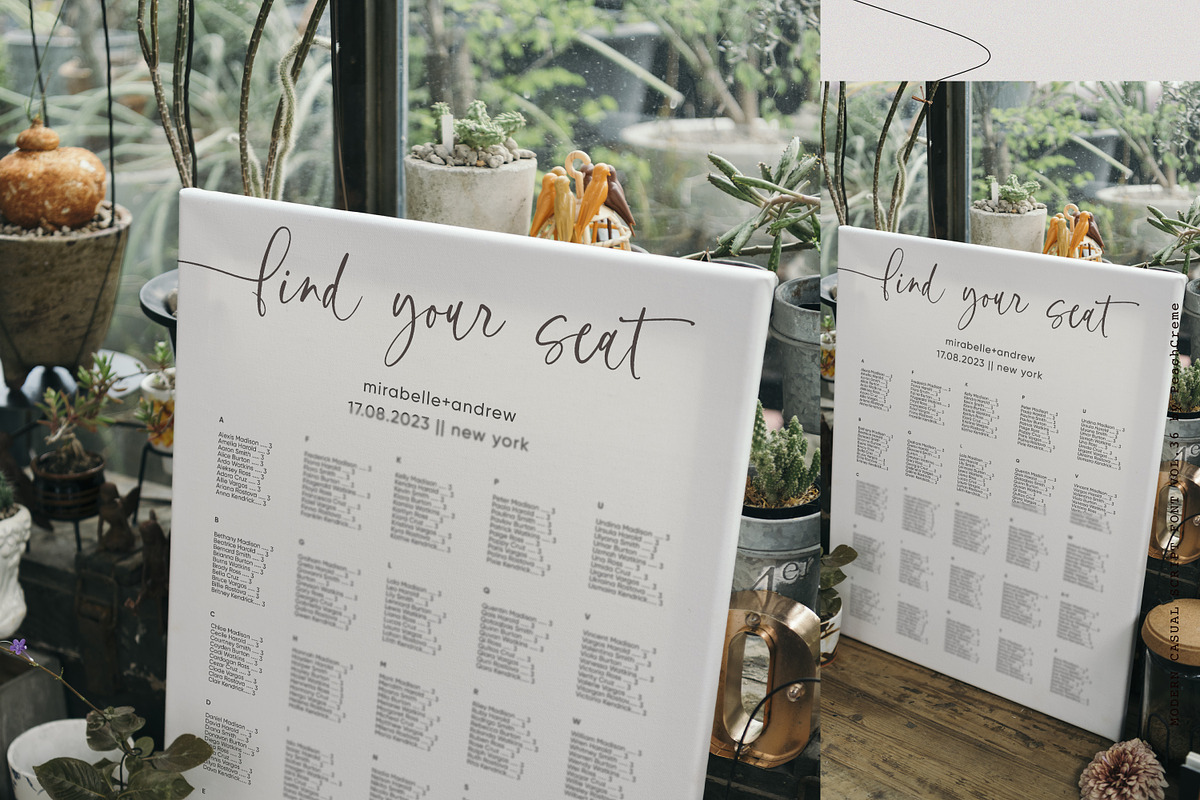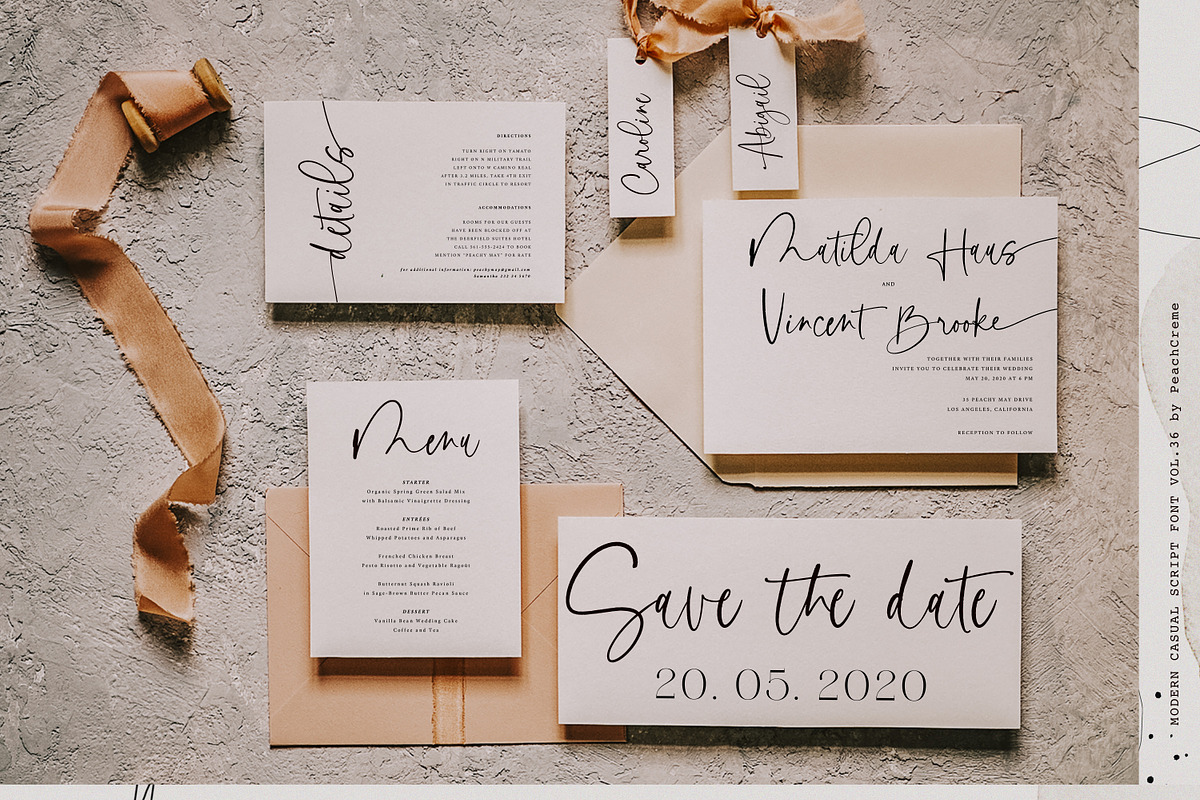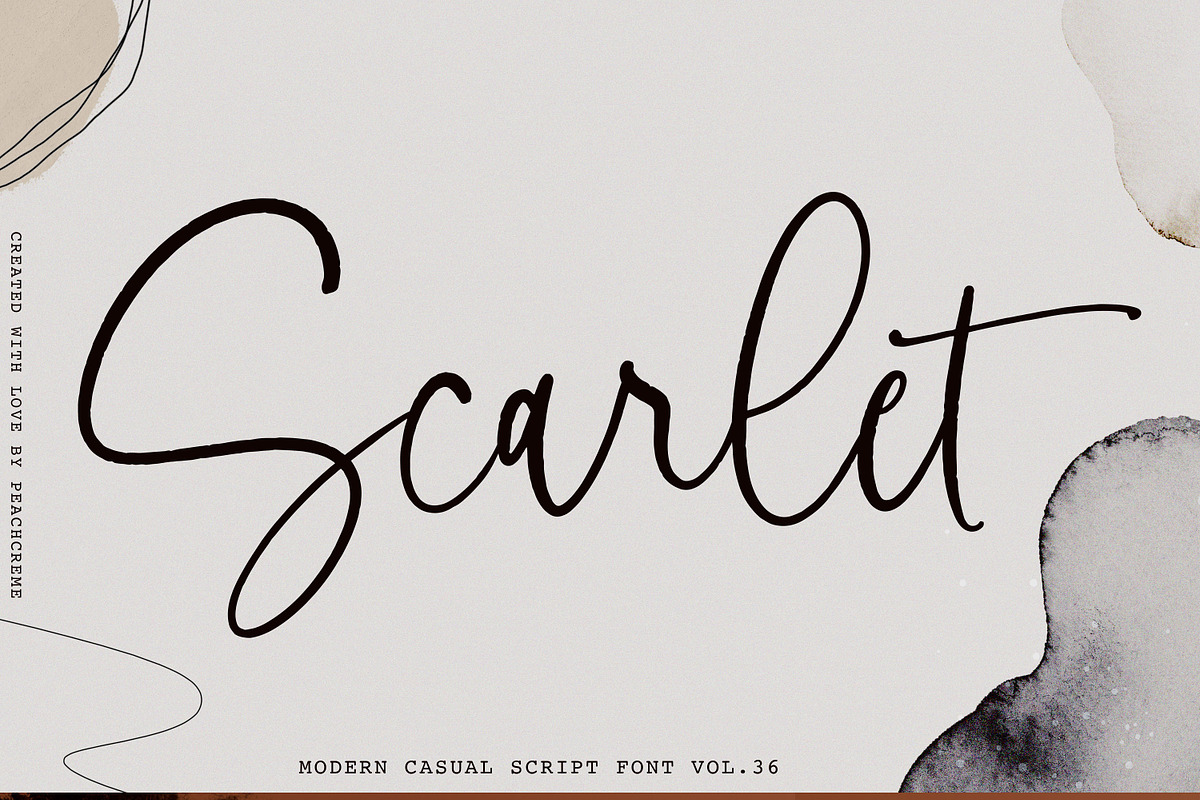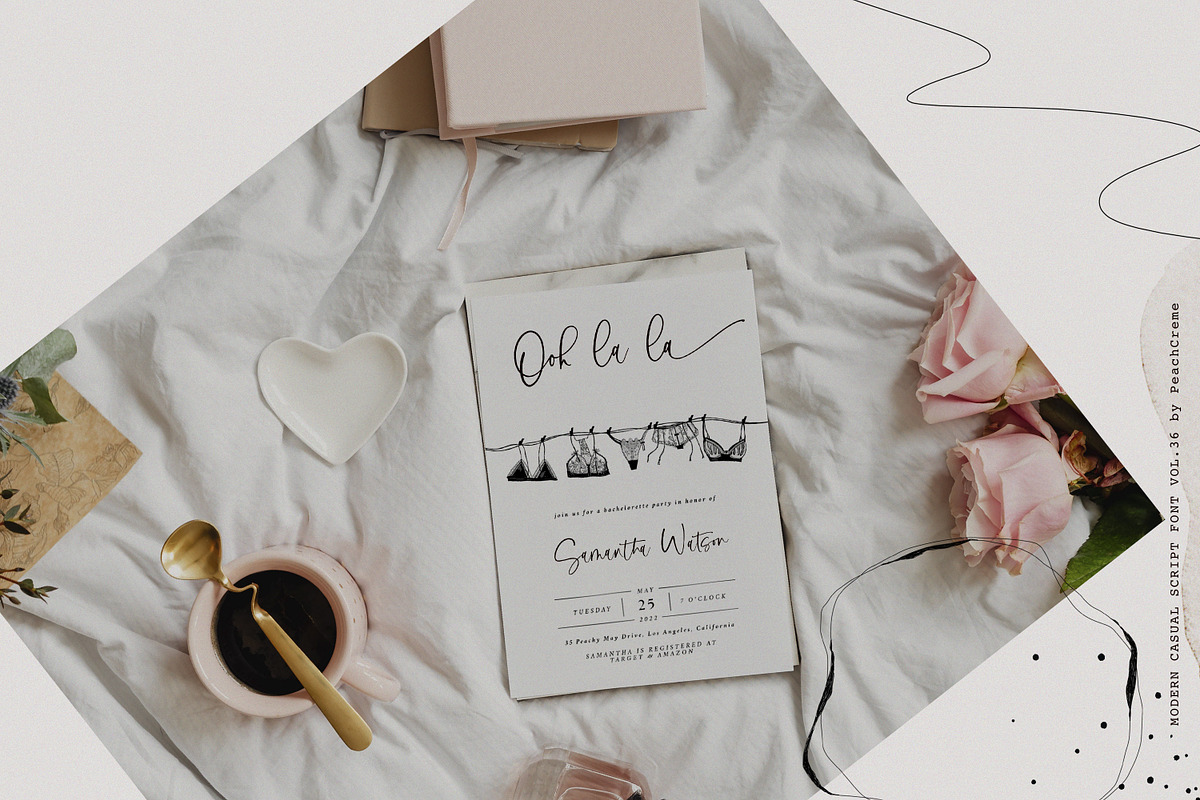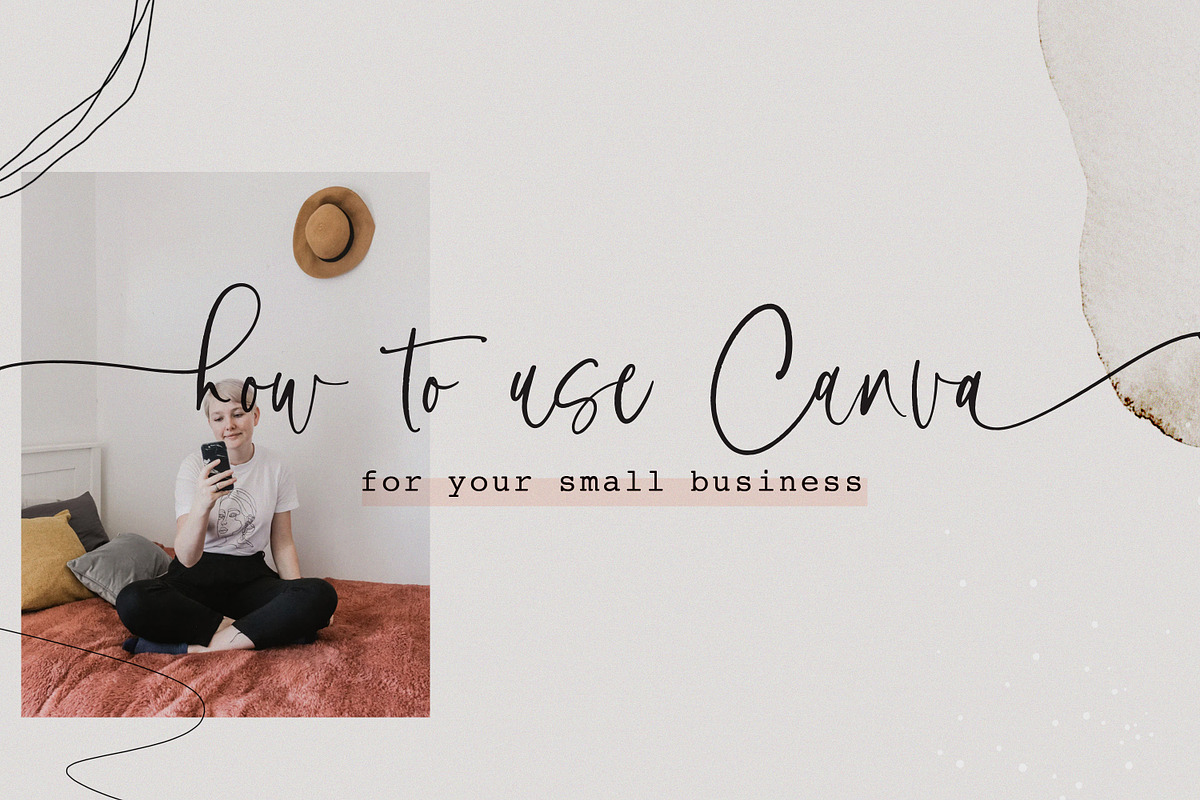
Scarlet// Modern Casual Font SALE
MODERN CASUAL SCRIPT FONT VOL.36
Scarlet is a new casual modern script font.
It includes a full set of uppercase and lowercase letters, multilingual symbols, numerals, punctuation and 134 ligatures. The font has a rough texture. It has beginning and ending lowercase letters.
- It includes a full set of uppercase and lowercase letters, multilingual symbols, numerals, punctuation and 134 ligatures.
- It has beginning and ending lowercase letters.